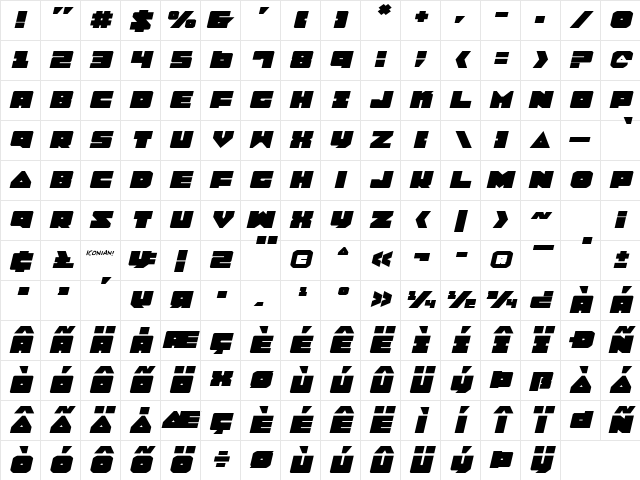
Complete Lobo Tommy Exp ExpItalic glyph index. Displaying only characters natively supported by Lobo Tommy Exp ExpItalic font.
Lobo Tommy Exp is a composed and adaptable typeface that performs quietly and consistently across a wide range of design contexts. The slanted form adds forward momentum and visual energy.
Pro Tip: Use Lobo Tommy Exp for emphasis, pull quotes, and subheadings where its slanted energy can add rhythm to the layout.